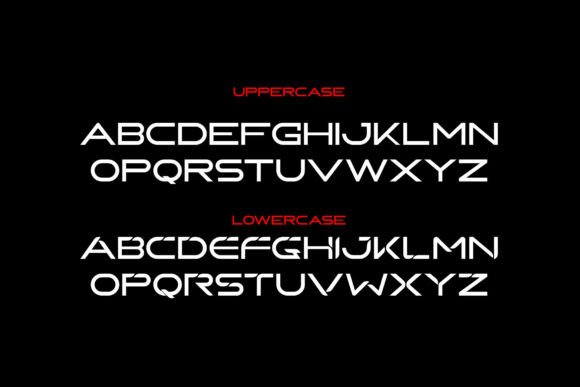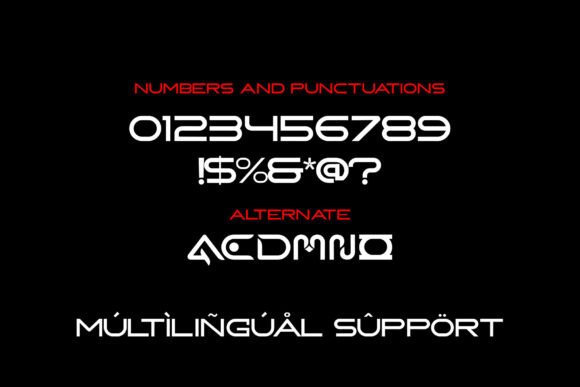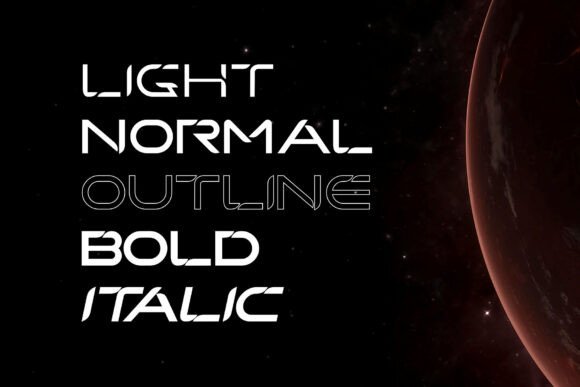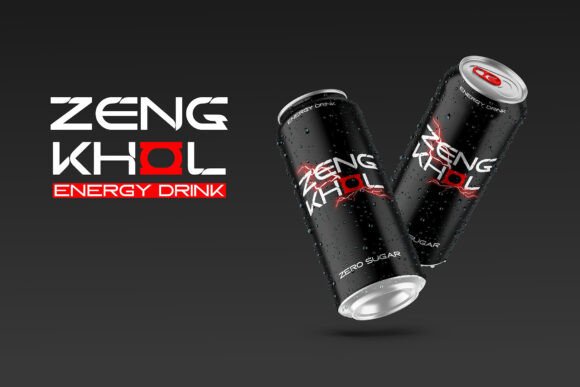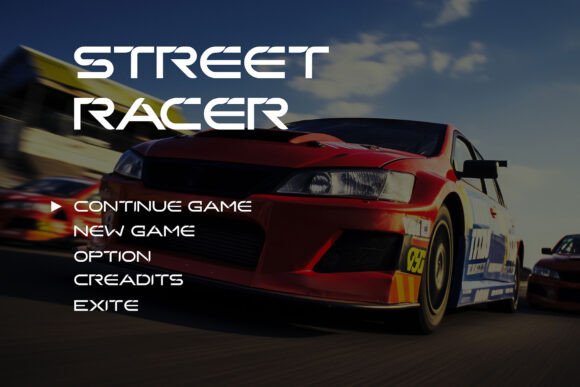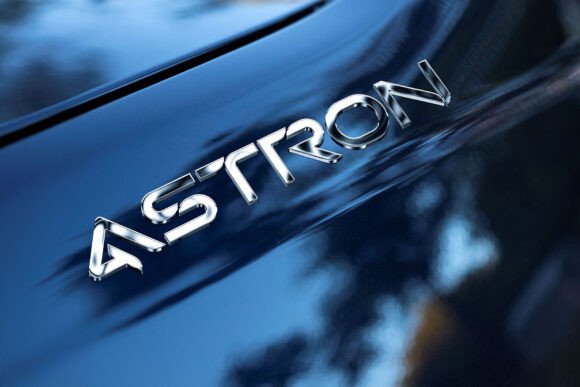
Unleash the Future of Design with Astron Kidos Font
In the ever-evolving world of design, typography plays a crucial role in conveying the essence of a brand or creative project. For those seeking to push the boundaries of innovation and modernity, Astron Kidos font emerges as a game-changer. This futuristic typeface is meticulously crafted to elevate avant-garde design initiatives, embodying the perfect blend of cutting-edge aesthetics and minimalist elegance.
The Essence of Modernity
Astron Kidos is more than just a font – it’s an experience. Its streamlined and polished appearance is designed to captivate audiences and leave a lasting impression. The crisp lines and modern aesthetics of this futuristic charmer work in harmony to create a fluid fusion of innovation and minimalism. Whether you’re working on technology branding, science fiction projects, or digital interfaces, Astron Kidos ensures an unrivaled boldness and sophistication that’s hard to match.
Unparalleled Versatility and Adaptability
One of the standout features of Astron Kidos is its versatility and adaptability. This font is not limited to a specific medium or application; it seamlessly adapts to various design contexts, ensuring that your creative vision is consistently realized. From logos and headlines to artistic layouts, Astron Kidos infuses life into every design element, making it an indispensable tool for designers and crafters.
Readability and Refined Finish
Astron Kidos strikes the perfect balance between style and functionality. Its unfettered readability, paired with a refined finish, makes it an ideal choice for a wide range of design projects. Whether you’re working on a digital platform or a print publication, this font ensures that your message is conveyed with clarity and precision, making it accessible to a broad audience.
Elevate Your Design to Unprecedented Heights
With Astron Kidos, you’re not just choosing a font – you’re embracing a design philosophy that prioritizes innovation, creativity, and forward-thinking. This futuristic typeface is designed to propel your design initiatives to unprecedented heights, making it an essential asset for anyone looking to stay at the forefront of design evolution.
Key Features of Astron Kidos Font
- Streamlined and Polished Appearance: Astron Kidos boasts a sleek and refined design that’s perfect for modern and avant-garde projects.
- Cutting-Edge Aesthetics: Its futuristic charm and crisp lines make it an ideal choice for technology branding, science fiction, and digital interfaces.
- Unrivaled Versatility: Astron Kidos adapts seamlessly to various design contexts, including logos, headlines, and artistic layouts.
- Exceptional Readability: Its refined finish and clear lines ensure that your message is conveyed with clarity and precision.
Ignite Your Creativity with Astron Kidos
If you’re looking to push the boundaries of design and creativity, Astron Kidos font is the perfect tool to ignite your imagination. By combining the essence of modernity with the principles of classic typography, this futuristic typeface offers a unique design experience that’s hard to match.
Astron Kidos font represents the intersection of innovation, creativity, and design evolution. Its streamlined and polished appearance, cutting-edge aesthetics, and unrivaled versatility make it an essential asset for designers and crafters seeking to elevate their design initiatives. Embrace the essence of modernity with Astron Kidos and discover a world of limitless creative possibilities.